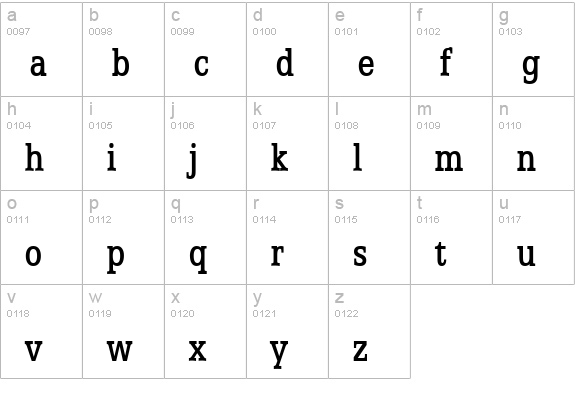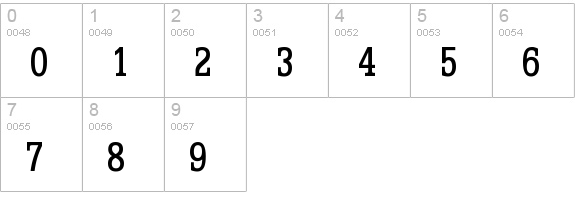
Eggo Condensed Bold is a strong, high-contrast, condensed-width variant in the Eggo typeface family \xE2\x80\x94 well suited to headlines, attention-grabbing titles, and strong calls-to-action.
Introducing Eggo Condensed Bold, a font that exudes strength and sophistication with its bold and condensed design. This font is perfect for making a statement, whether it be in branding, headlines, or any other design project that requires a powerful and impactful look. Eggo Condensed Bold is meticulously crafted with attention to detail, resulting in clean and crisp letterforms that demand attention. Its condensed nature allows for efficient use of space, making it an ideal choice for designs that require a compact yet impactful aesthetic. But what sets Eggo Condensed Bold apart is not just its impeccable design, but also its accessibility. This font is freely available to download at FontsMarket.com, ensuring that anyone can enjoy its bold and dynamic presence without any barriers. Whether you are a professional designer or a casual enthusiast, Eggo Condensed Bold is here to elevate your projects and make a lasting impression. With its strong and commanding presence, Eggo Condensed Bold is ready to take your designs to new heights. Download it today at FontsMarket.com and unleash its power in your next creative endeavor.